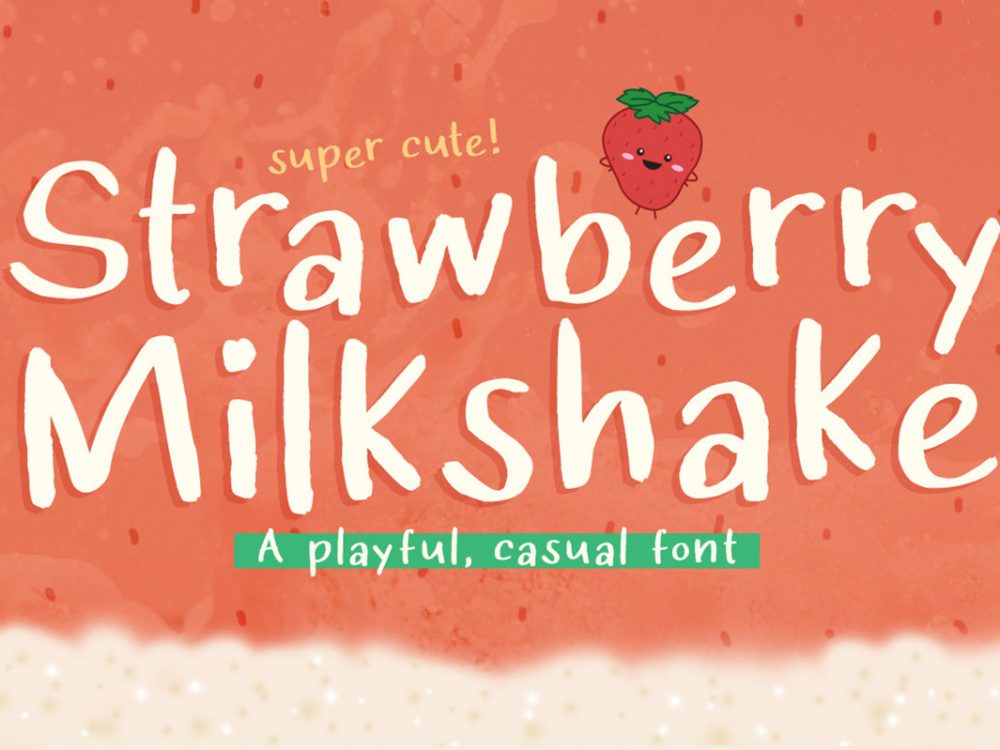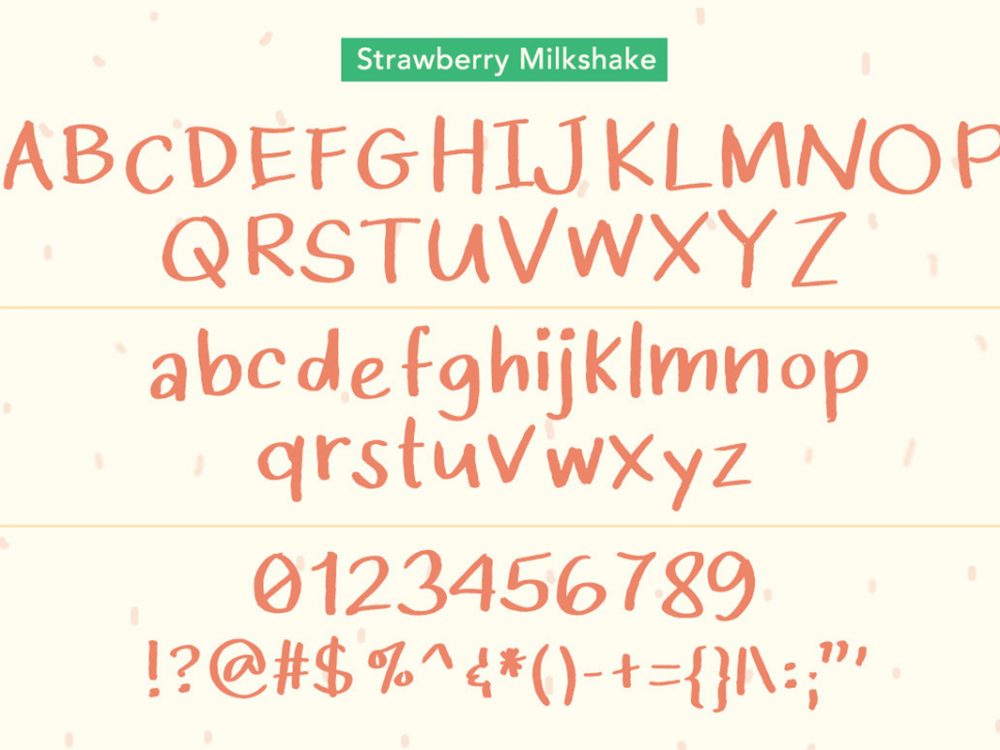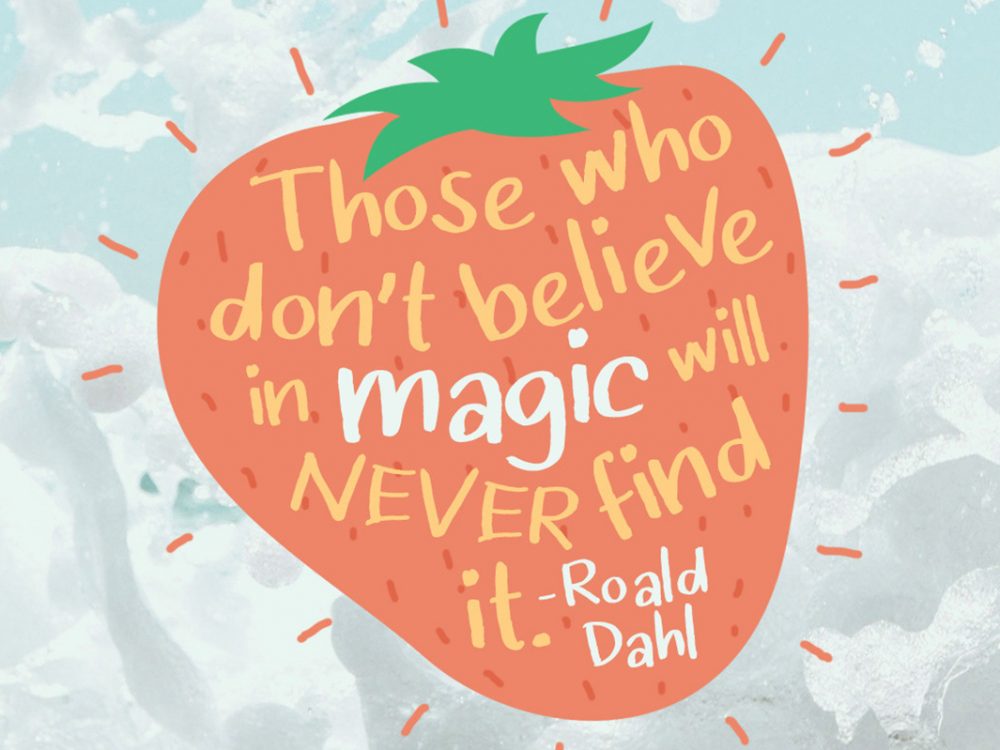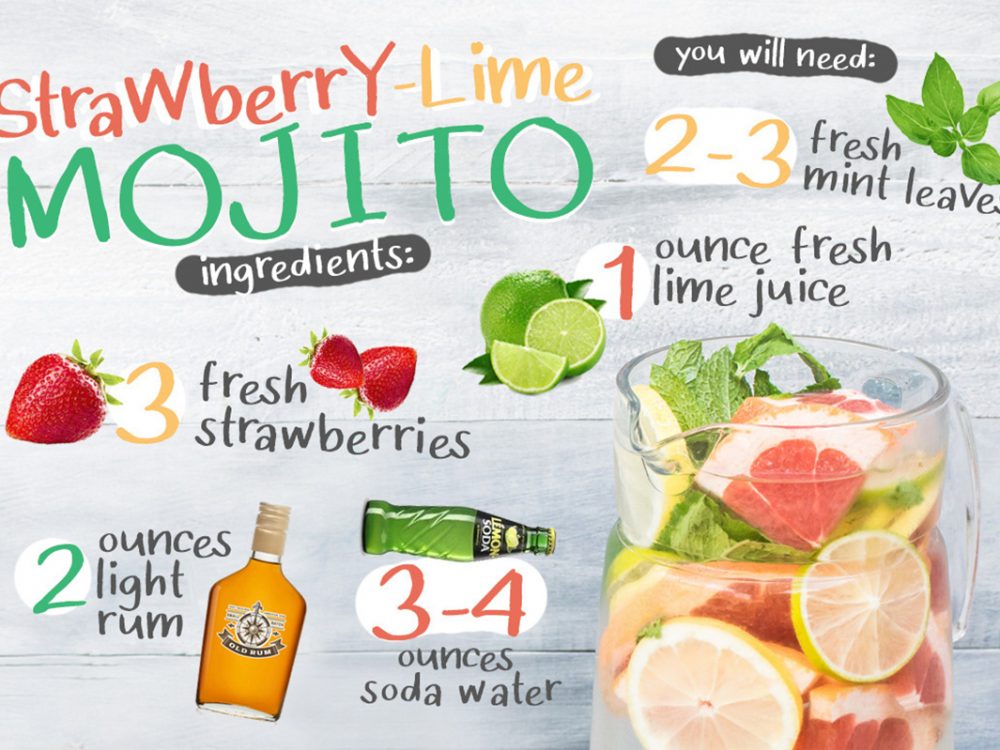
Strawberry Milkshake Font Demo
Strawberry Milkshake Font Demo is an interesting font that imitates writing with a marker and has a childish style of execution. This font is perfect for a variety of design projects such as kid’s posters, invitations, postcards, branding, flyers, prints, and more. If you wish to access more features and use them for commercial work, go get the full version.